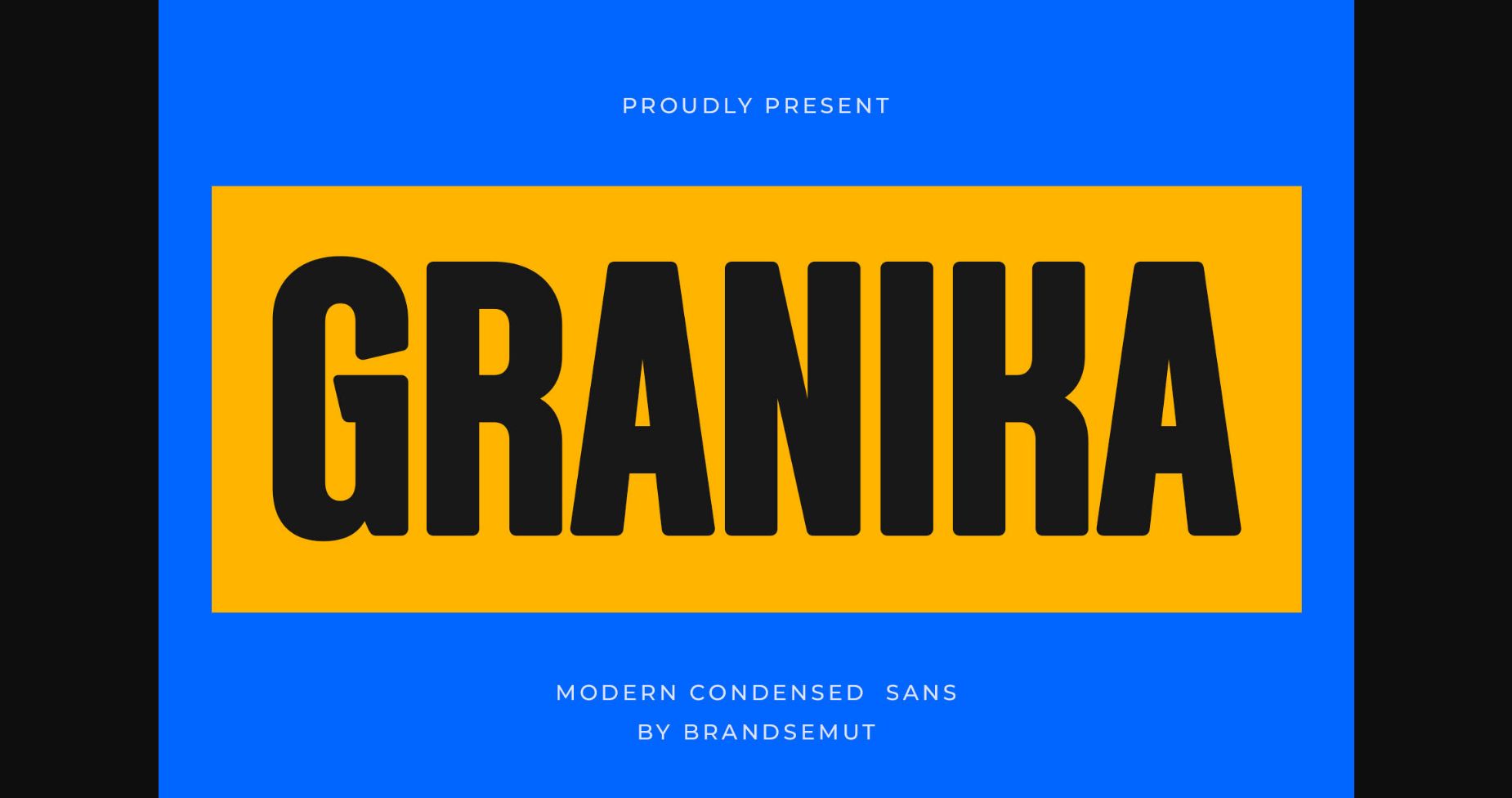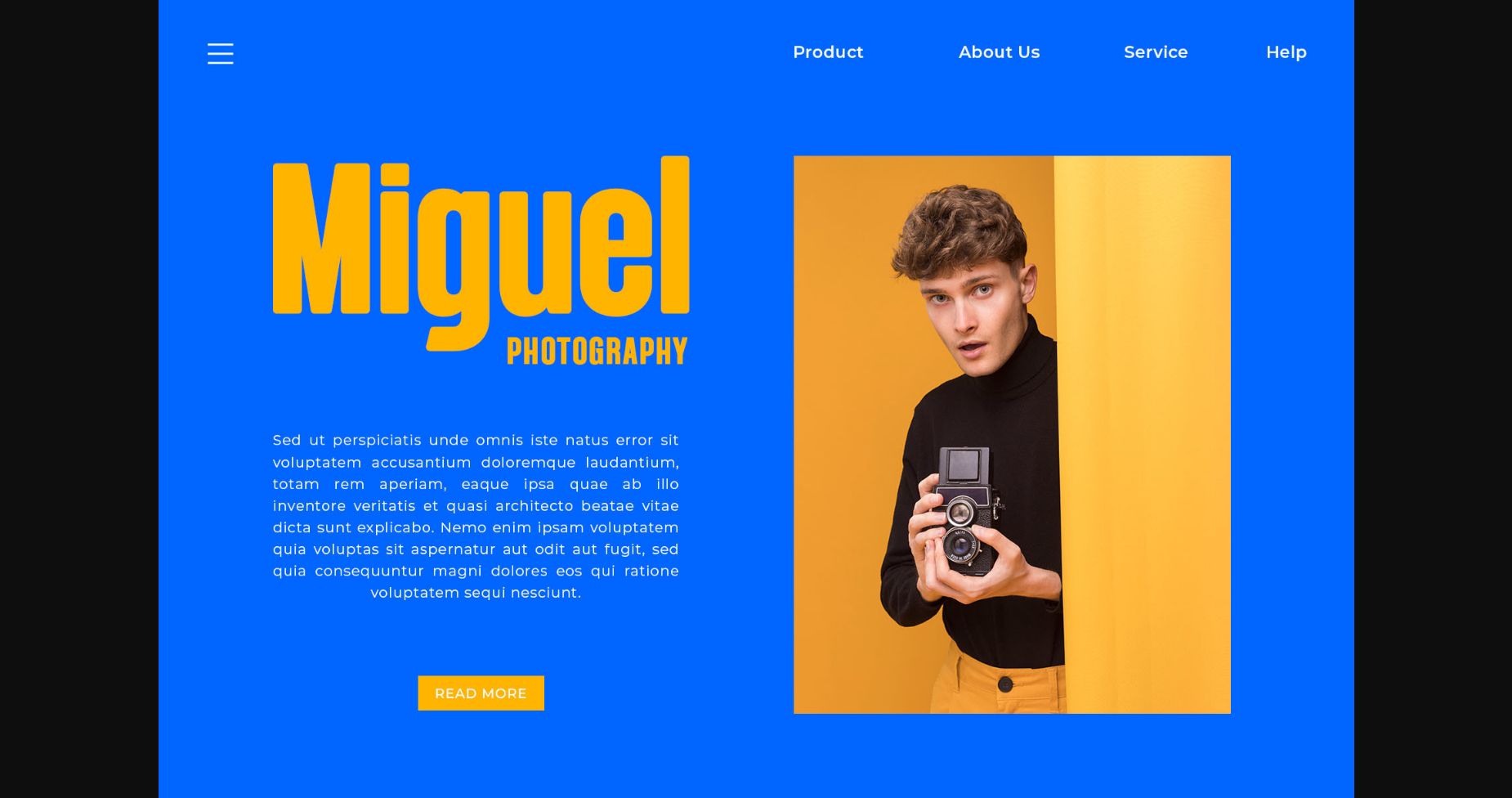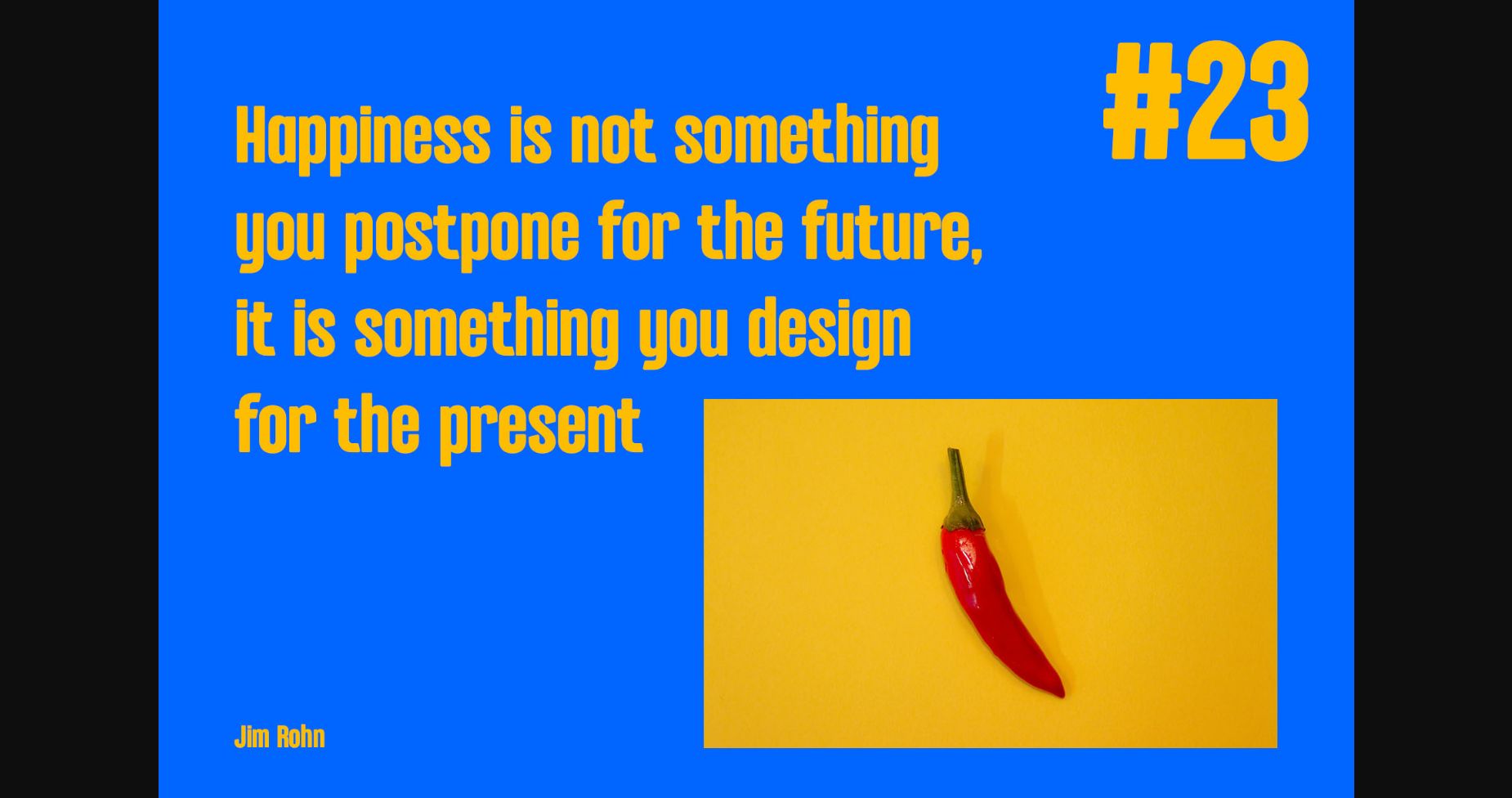
About Granika Font
Introducing Granika Modern Condensed Sans
Granika is a modern and simple font, best used as a display for headings, logos, branding, magazines, product packaging and invitations. Granika comes with clean lines and smooth curves giving any project an extra touch of class.